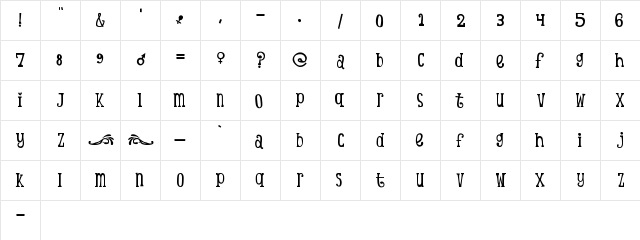
SC Tina's Baby Shower Demo
Design Context for SC Tina's Baby Shower Typeface
SC Tina's Baby Shower is a composed and adaptable typeface that performs quietly and consistently across a wide range of design contexts.